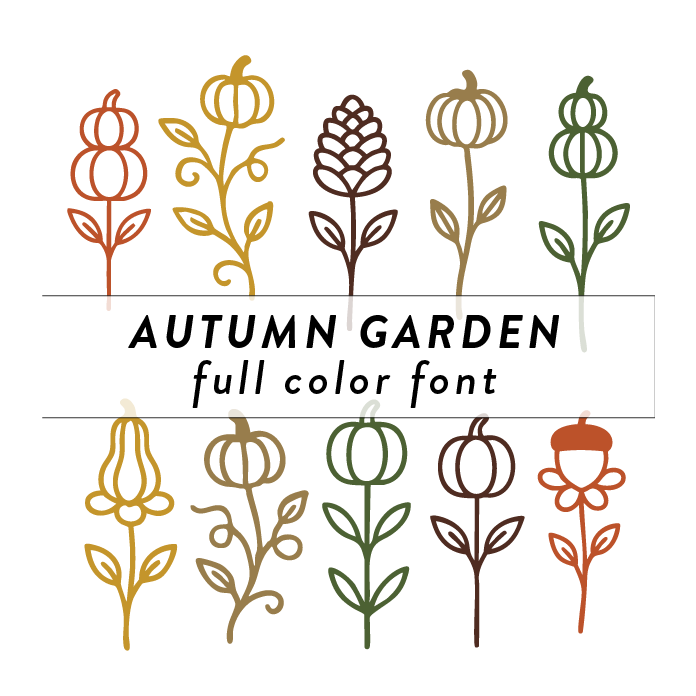
Autumn Garden Full Color Font features a playful interpretation of a fall garden. Each fall icon is placed on a flower stem to add a touch of whimsy and festivity to any holiday, home decor, or other creative project. This font is a OTF craft font that will appear in color only when used with the silhouette software.